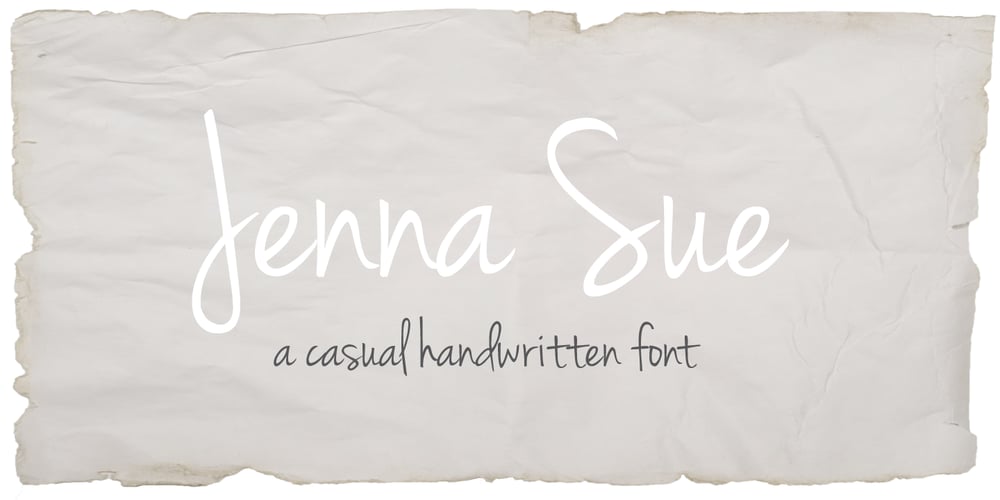
Jenna Sue Pro
Jenna Sue Pro font
Jenna Sue Pro Font Family was designed by Jenna LeBlanc and published by Jenna Sue Design. Jenna Sue Pro contains 1 styles and family package options. The full extended version of the popular ‘Jenna Sue’ font. A casual handwritten font, handmade with care.